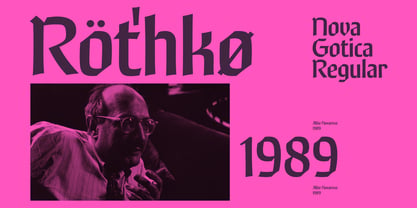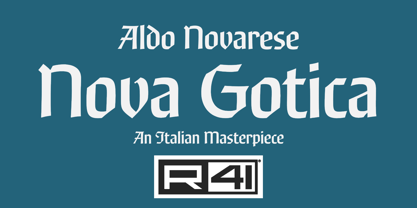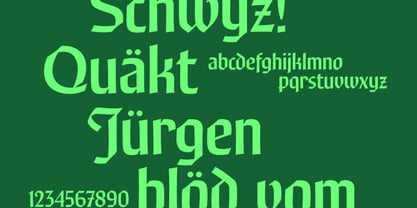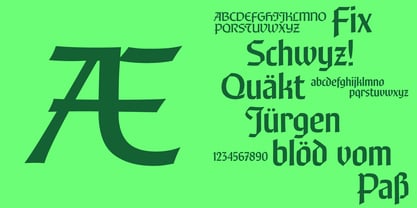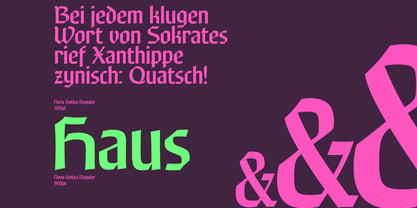
R41 Nova Gotica
The beloved “gothic” fonts have a rich history. In 1988, Reber R41 commissioned Aldo Novarese to create a custom font inspired by the “medieval” family, aiming to innovate upon the traditional blackletter style. Through extensive research, Novarese achieved his vision, crafting a typeface that retains a classic aesthetic while introducing captivating new shapes. This design successfully merges tradition with modern experimentation, making it a versatile choice for various applications.
Reber R41 is an Italian company founded in Spresiano, Treviso, in 1960 by Renato Bernardi, inventor of his own method of dry transfer type, and still run by his family. Since 1969, R41 has produced dry-transfer adaptations of iconic designs from Nebiolo Type Foundry, including its most experimental creations designed for the booming Italian advertising industry. Designer Aldo Novarese, who retired from Nebiolo in the early ’70s, worked with Reber R41 for years afterward designing brands, catalogues, advertising and of course…typefaces. Now Reber R41 provides new digitizations of the work of Novarese and Nebiolo of Turin, brought together in a unique collection that preserves the best of historic Italian typography of the twentieth century.